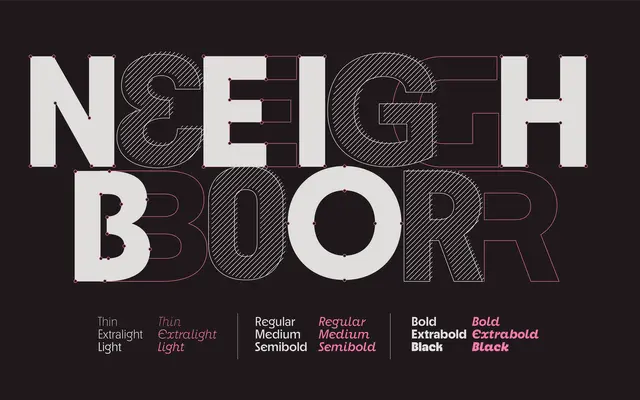
Neighbor
A 18-style humanist sans with genuinely drawn cursive italics and an extensive set of OpenType alternates including wide, narrow and schoolbook lowercase variants.
Spanning nine weights from Thin to Black with matching italics, Neighbor offers more stylistic range than its clean exterior suggests. The italics are designed as active cursive companions rather than sloped romans, with hints of calligraphic letterforms in f, g, k, s and z. OpenType features include wide and narrow uppercase, diamond-cut E and F alternates, geometric and schoolbook lowercase sets, and a full suite of figure styles from oldstyle to scientific inferiors.
The presence of cursive-inflected italics, schoolbook and geometric lowercase alternates, and swash characters indicates a humanist sans with expressive personality rather than a neutral grotesque or strict geometric.